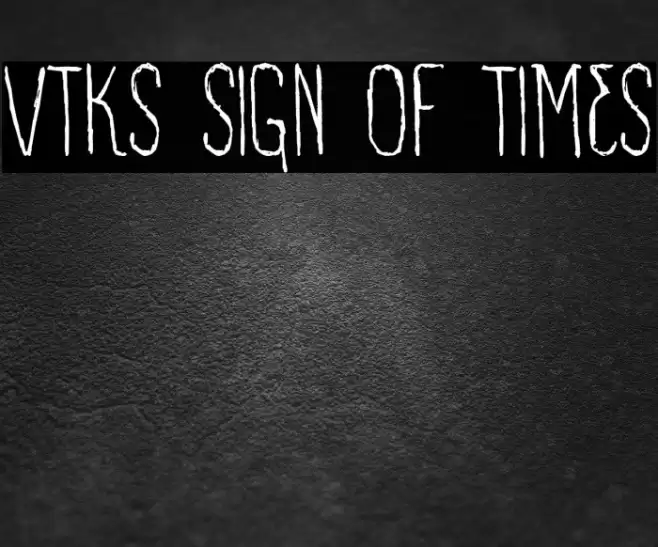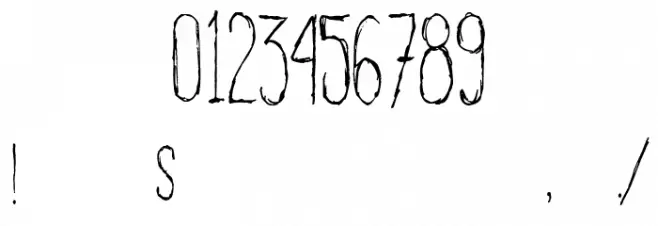
VTKS SIGN OF TIMES Font
VTKS SIGN OF TIMES Description
This font features a hand-drawn, distressed style that gives it a vintage and rustic appearance. The characters are tall and narrow, with uneven edges and a slightly rough texture, suggesting a worn or aged look. The uppercase and lowercase letters maintain a consistent height, contributing to a uniform appearance despite the irregularities in line thickness. The numbers and special characters follow the same aesthetic, enhancing the overall cohesive feel. This font's unique style makes it suitable for projects that aim to convey a sense of history or nostalgia.
A hand-drawn, distressed font with a vintage, rustic appearance from Uncategorized fonts.
- Proposed Projects: Ideal for vintage-themed posters, historical event invitations, rustic branding, and artistic projects that require a touch of nostalgia.
- Overall Style: Vintage
- Use Case: Logos, Posters, Artistic projects